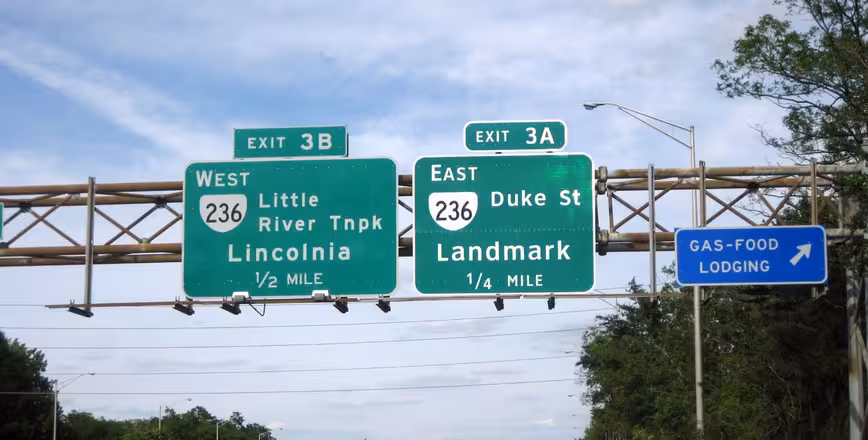
The government has decided its boring old font for highway signs is good enough
A decade-long experiment regarding highway sign fonts is coming to an end, and the government is calling it a failure.
Called “Clearview,” the experimental font was meant to make highway signs easier to read, especially from distance and at night.
Unfortunately, research didn’t support that position, so the US Department of Transportation (DoT) is keeping its “Highway Gothic” font active.
Don’t expect a lot of work to remove the signs, though. The DoT says the signs can be used until they reach their natural end of their “useful life” and don’t need to be taken down until then.
As you can see from the tweet above, there’s a distinct difference between Clearview and Highway Gothic. If it were up to me — considering there’s no safety issue with either — I’d have gone with Clearview.